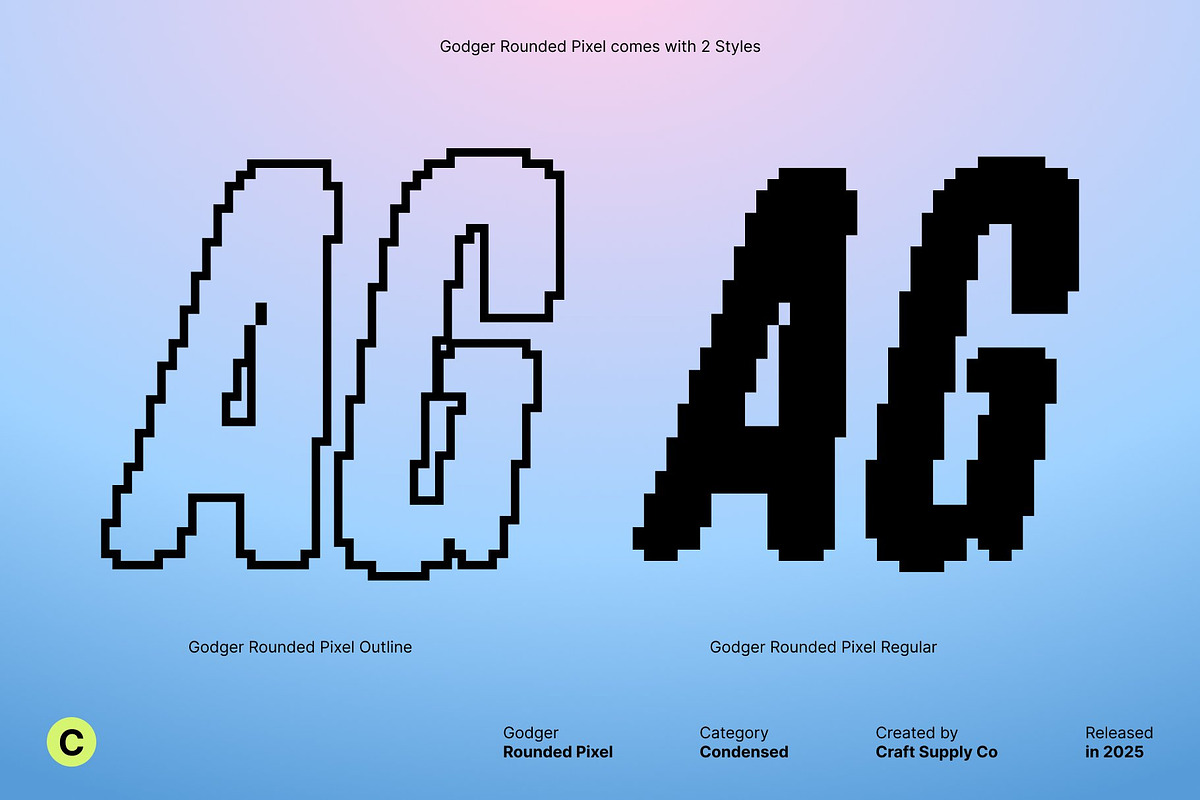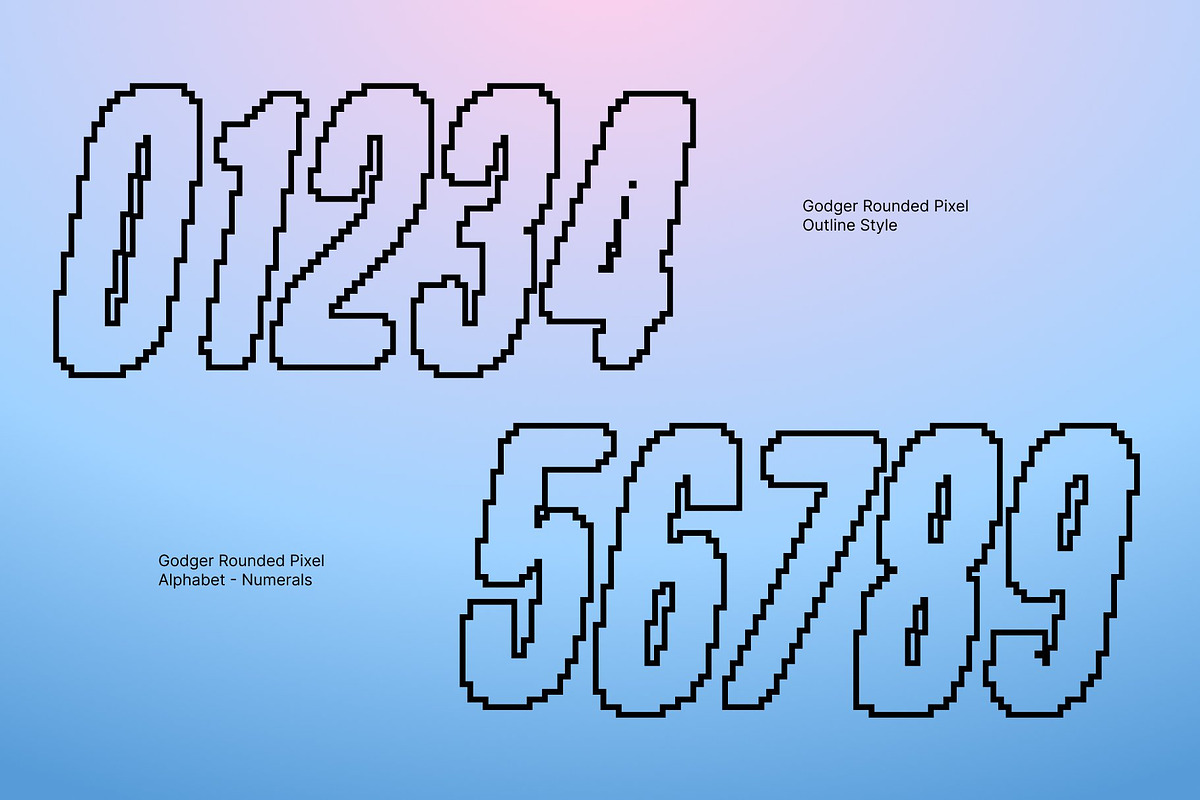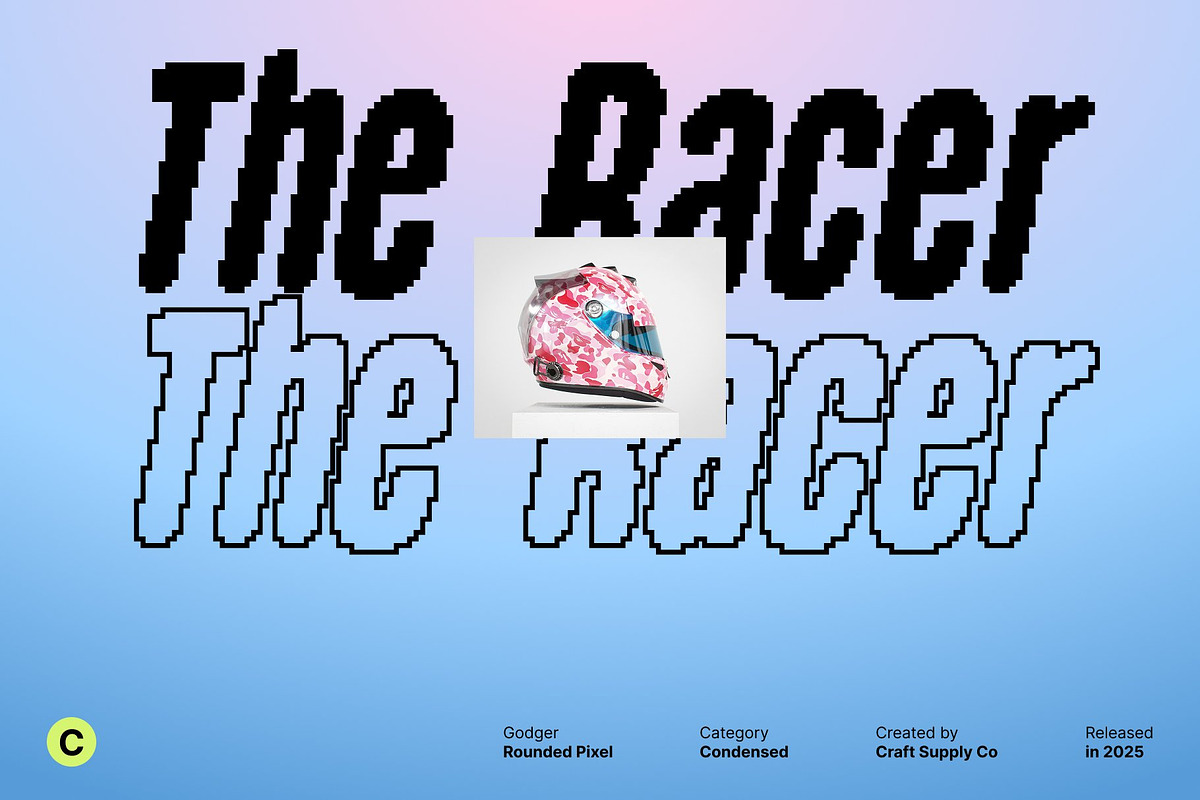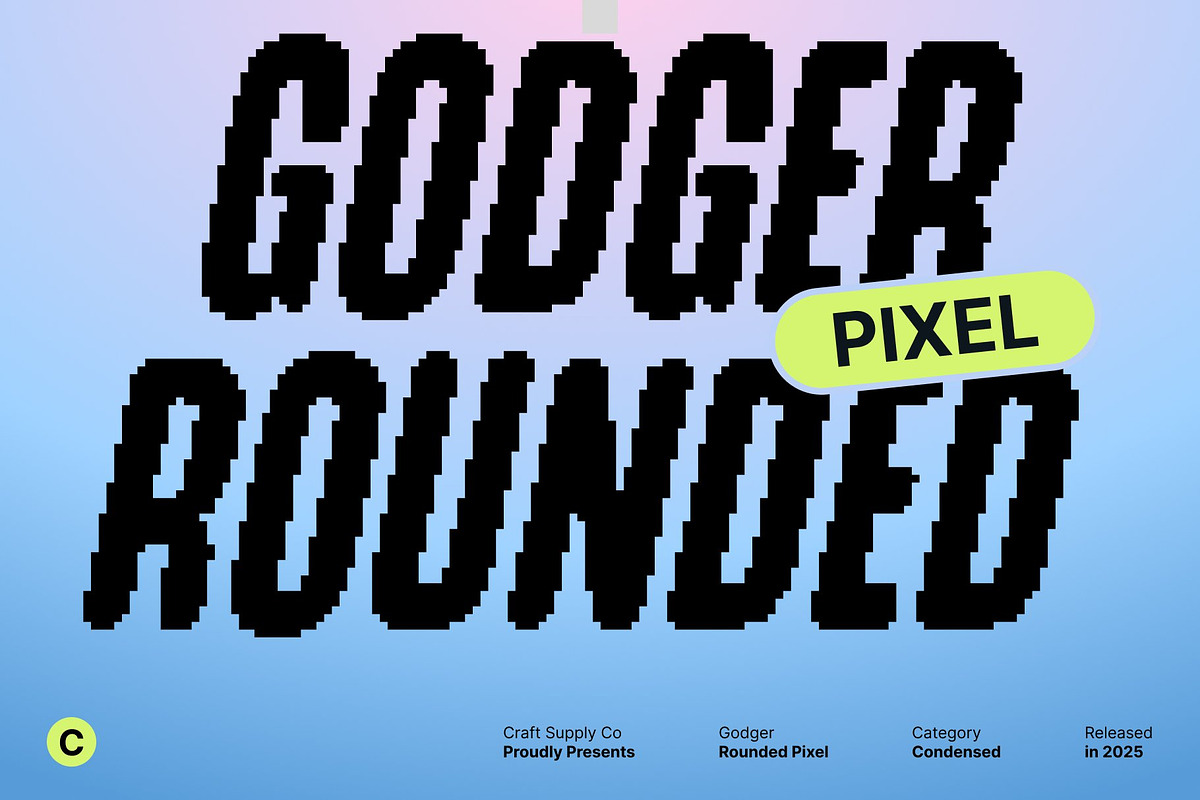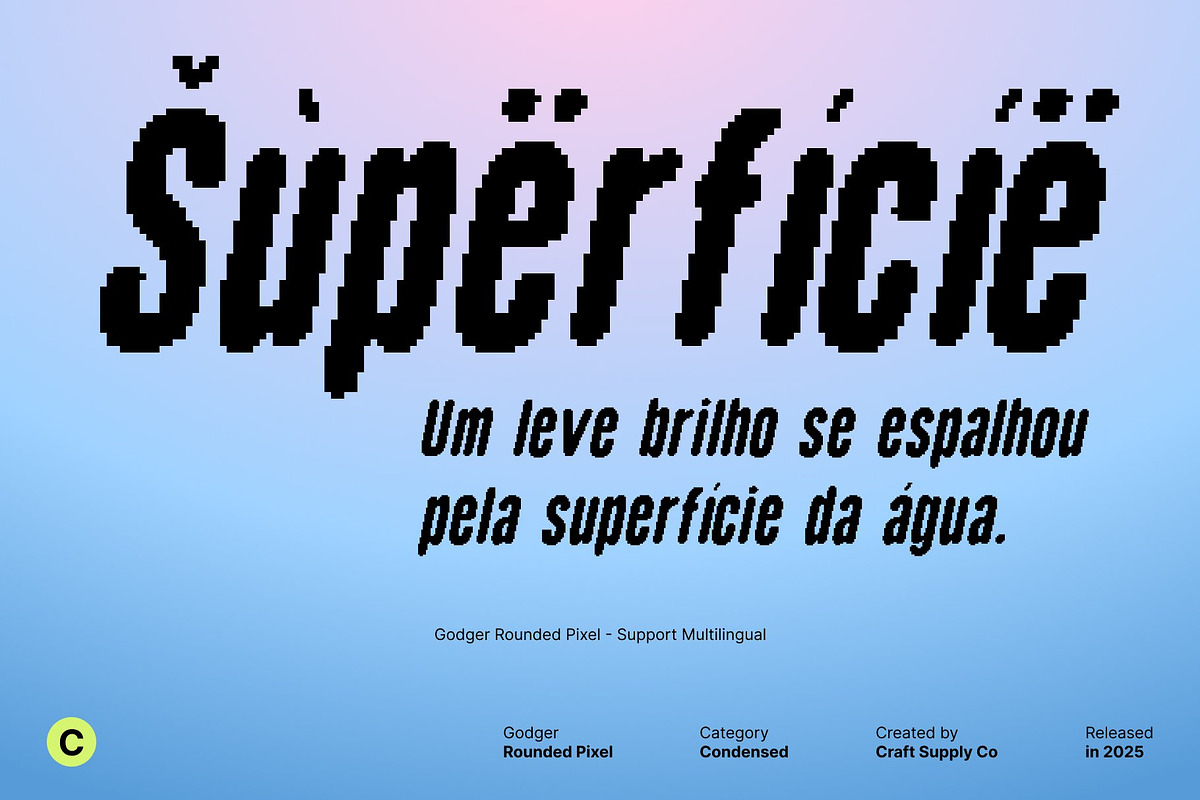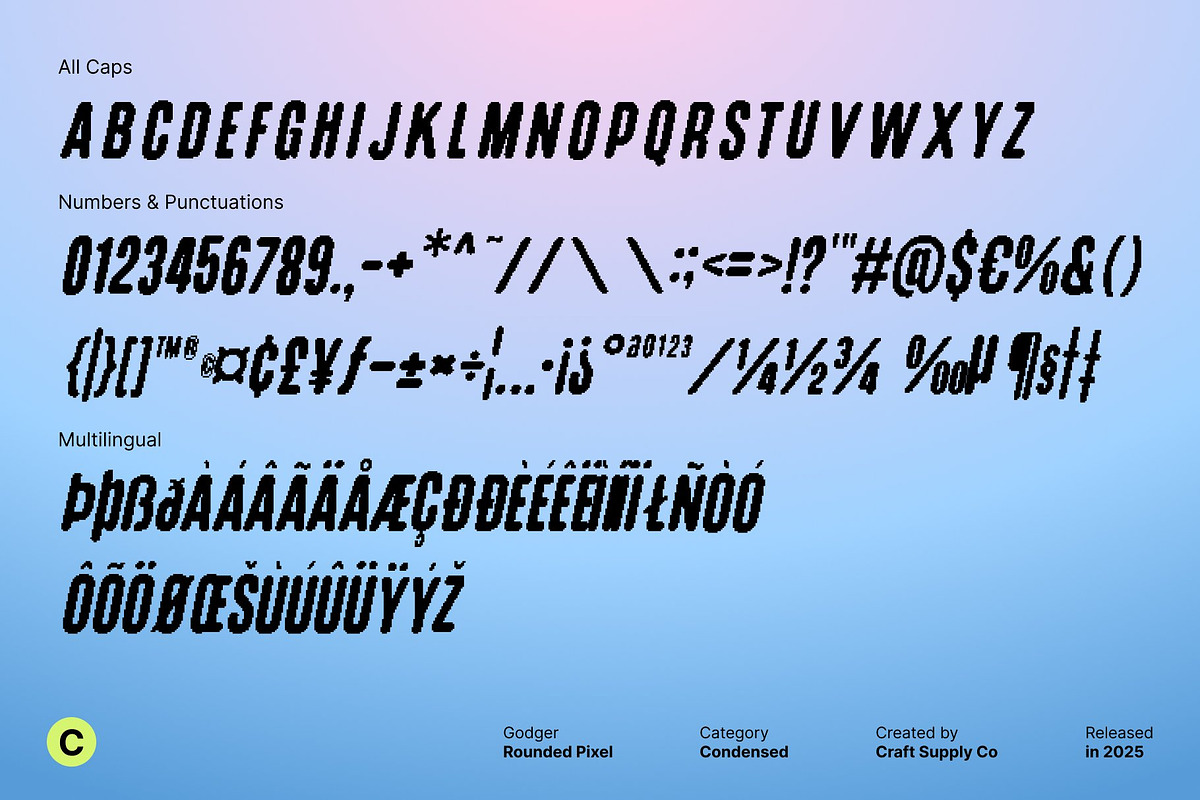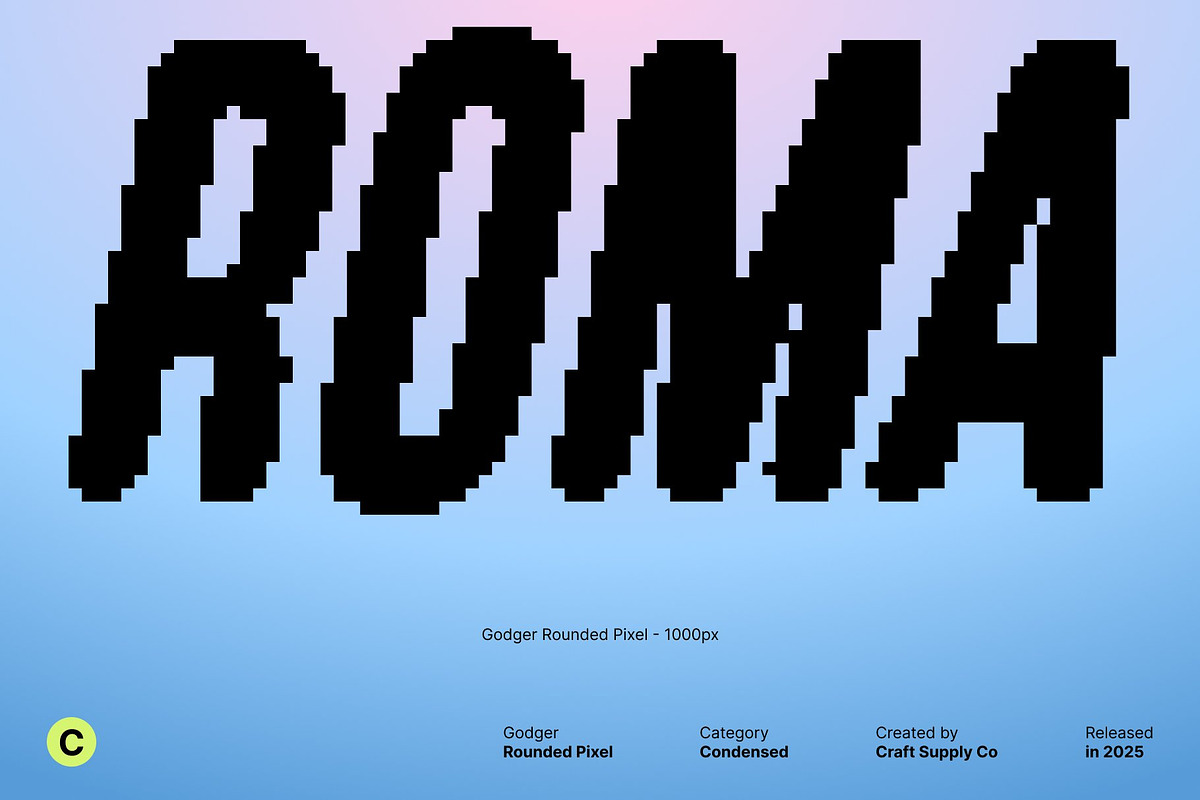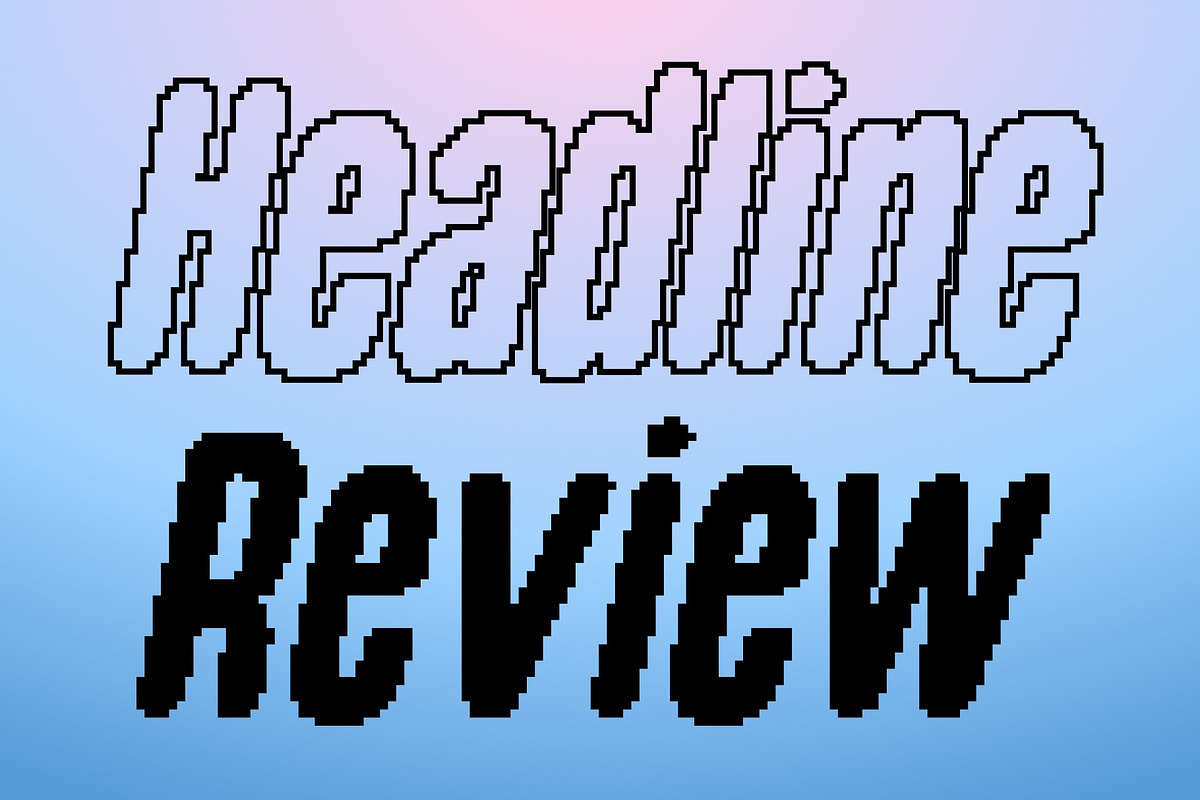
Godger Rounded Pixel
Godger Rounded Pixel – Condensed Rounded Pixel Sans Serif
Modern Shapes with a Fresh, Contemporary Feel This condensed sans serif font blends bold weight, rounded forms, and pixel-inspired detailing to create a distinctly modern appearance. The combination of smooth curves and digital pixel texture gives each character a clean yet visually striking presence, making the font stand out in any layout.
Unique Pixel Style for Creative and Trendy Designs The pixel styling adds a playful digital twist, creating a look that is both nostalgic and fresh. This unique fusion of soft rounding and sharp pixel edges results in an eye-catching aesthetic that instantly energizes posters, branding, and digital projects. Its pixel impression evokes the world of digital art, games, and futuristic design while staying clean and approachable.
Perfect for Logos, Posters, and Digital Branding With its condensed structure and bold form, this font is ideal for logos, titles, social media graphics, and display text that demands attention. The modern, pixel-driven look ensures your designs feel current, stylish, and full of personality, whether used for tech branding, creative campaigns, or youthful visuals.
Fresh, Clean, and Distinctively Modern Crafted to bring freshness and clarity to your work, this font balances modern minimalism with digital character. Its combination of rounded shapes and pixel style delivers a contemporary look that feels both innovative and visually refreshing, making it a versatile choice for designers seeking something bold and unique.
- Godger Rounded Pixel Regular
- Godger Rounded Pixel Outline